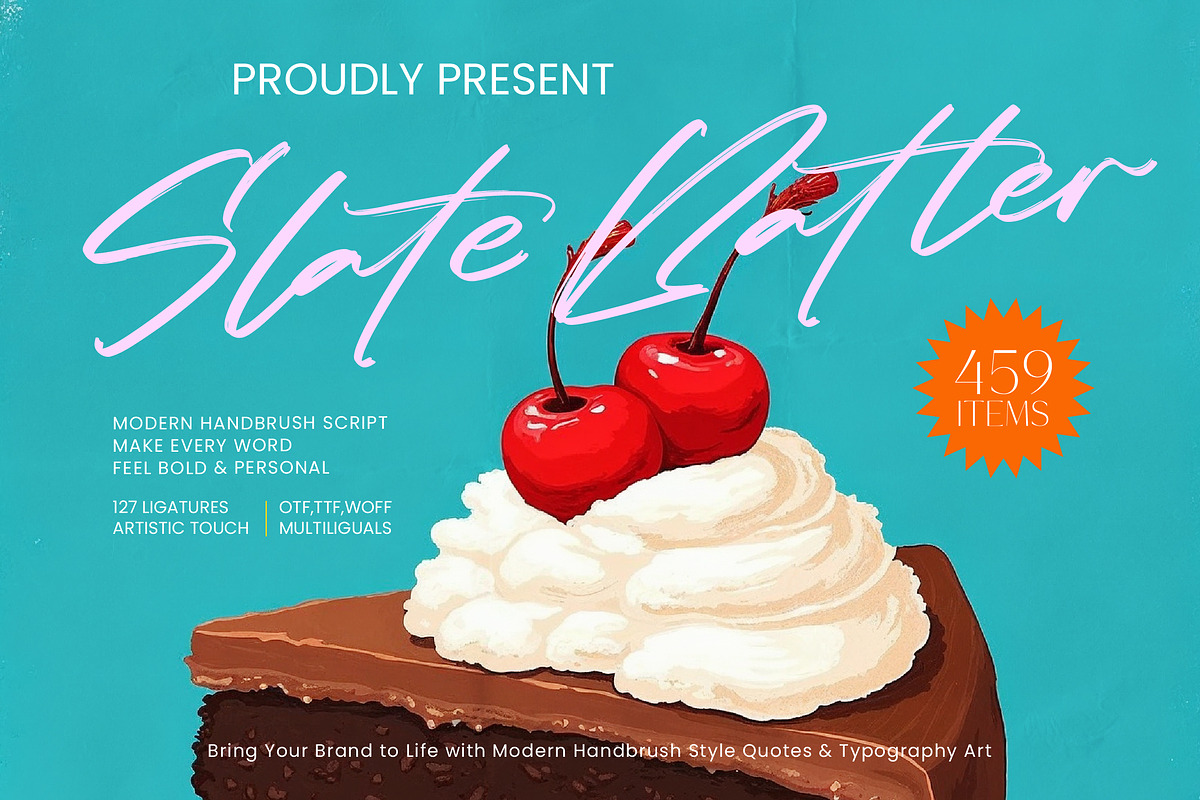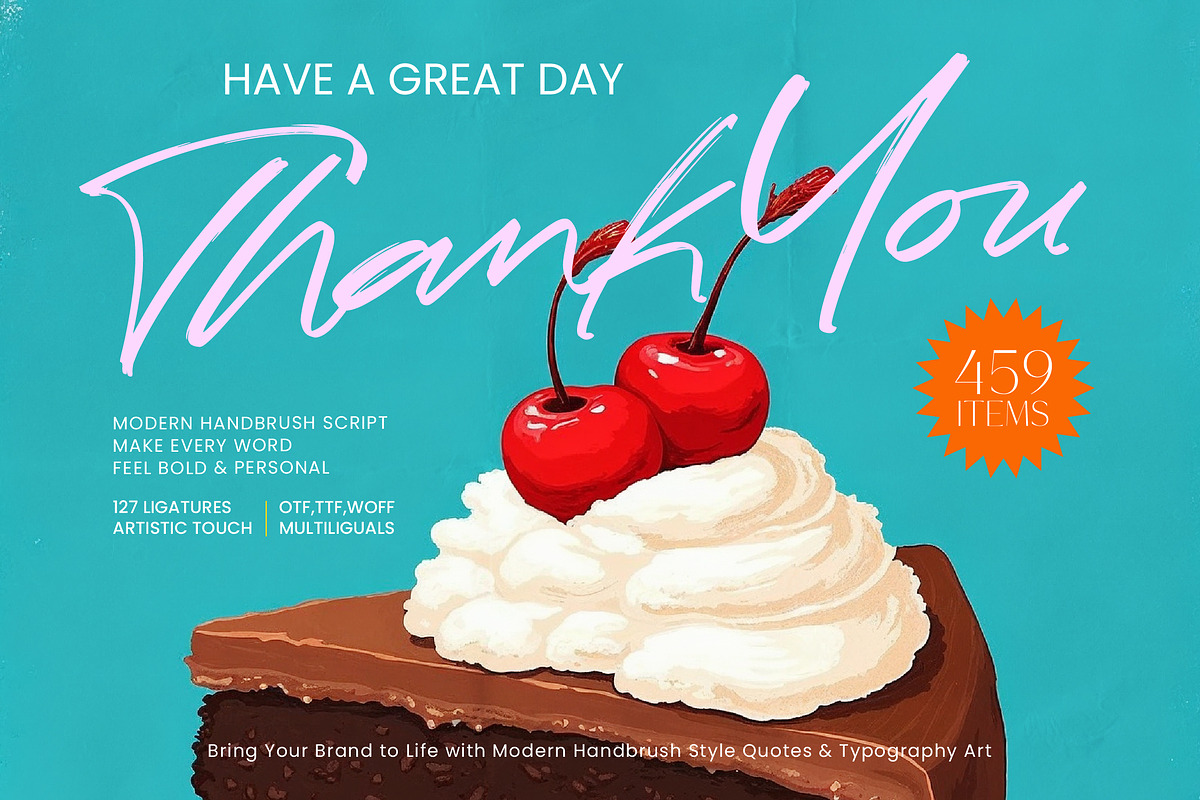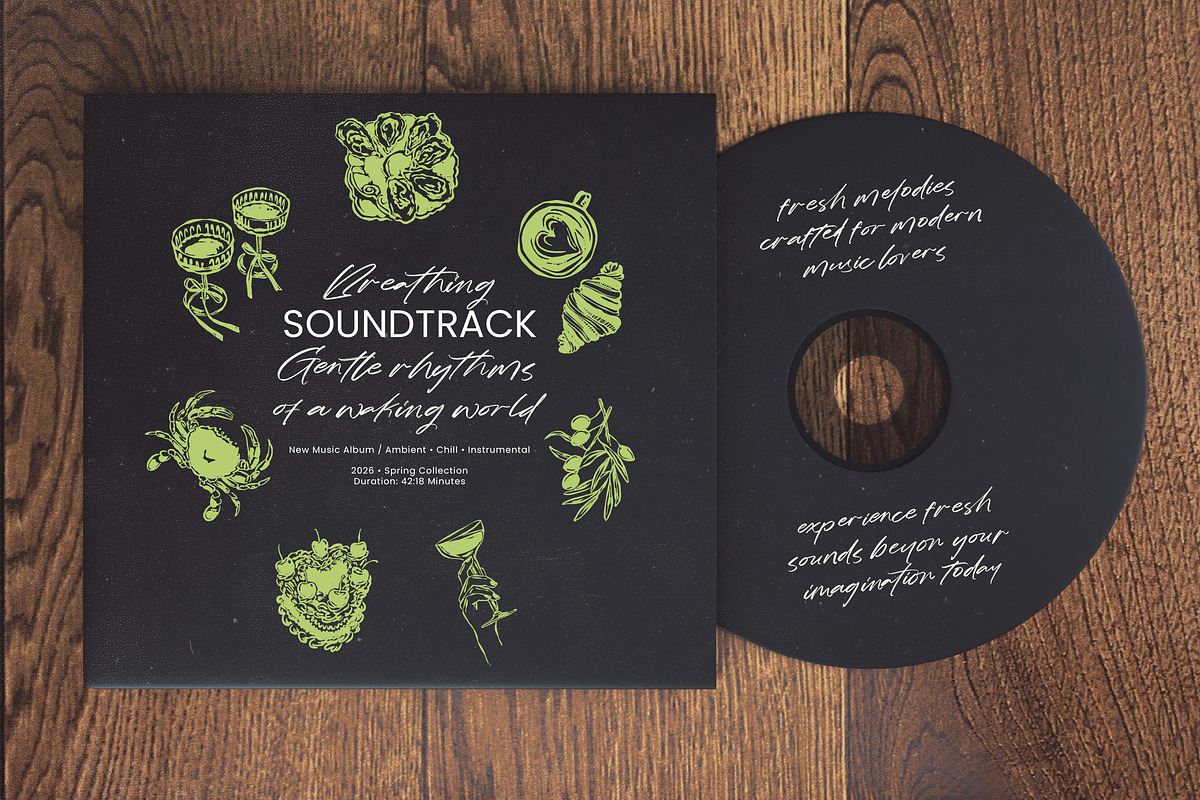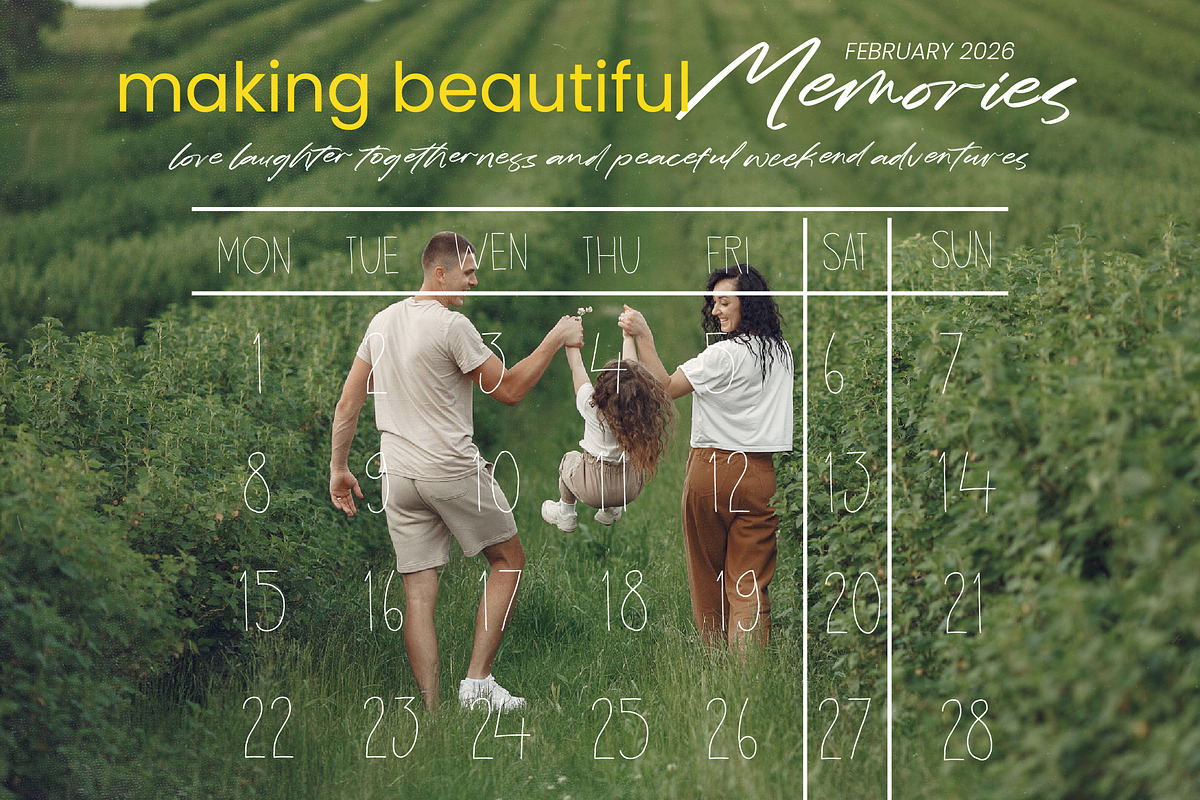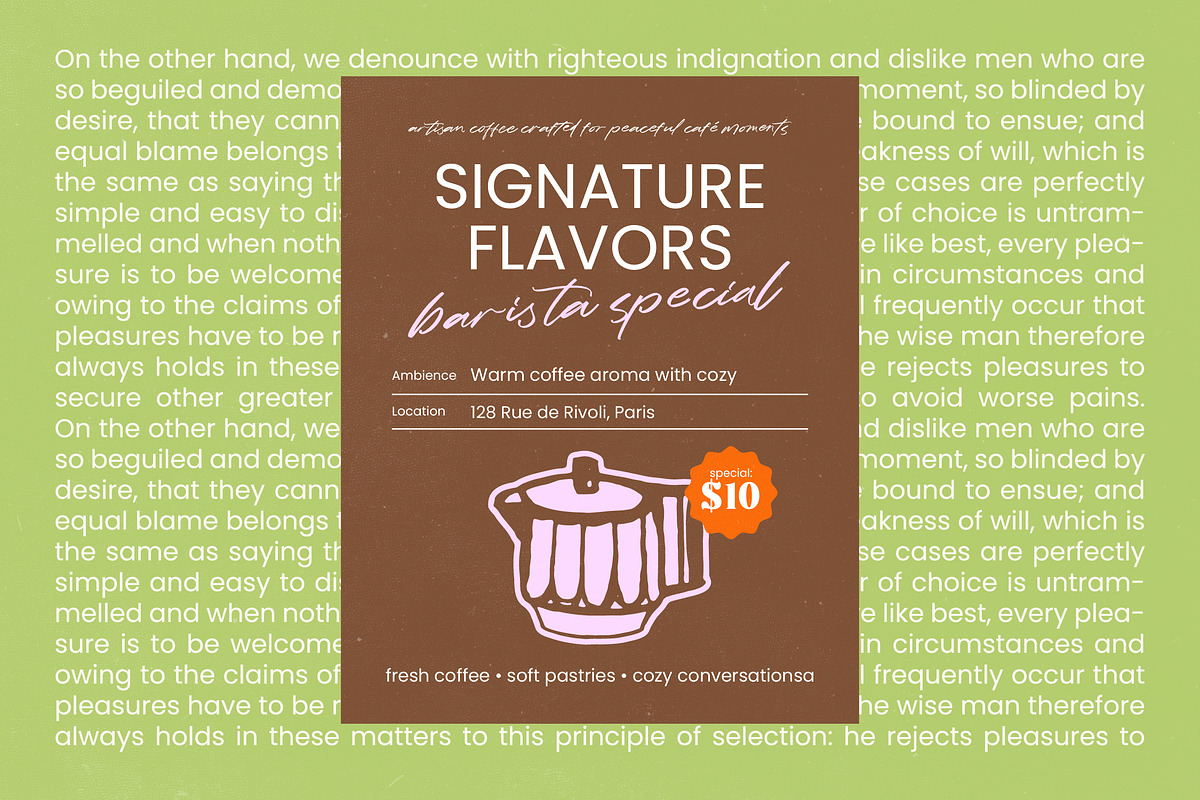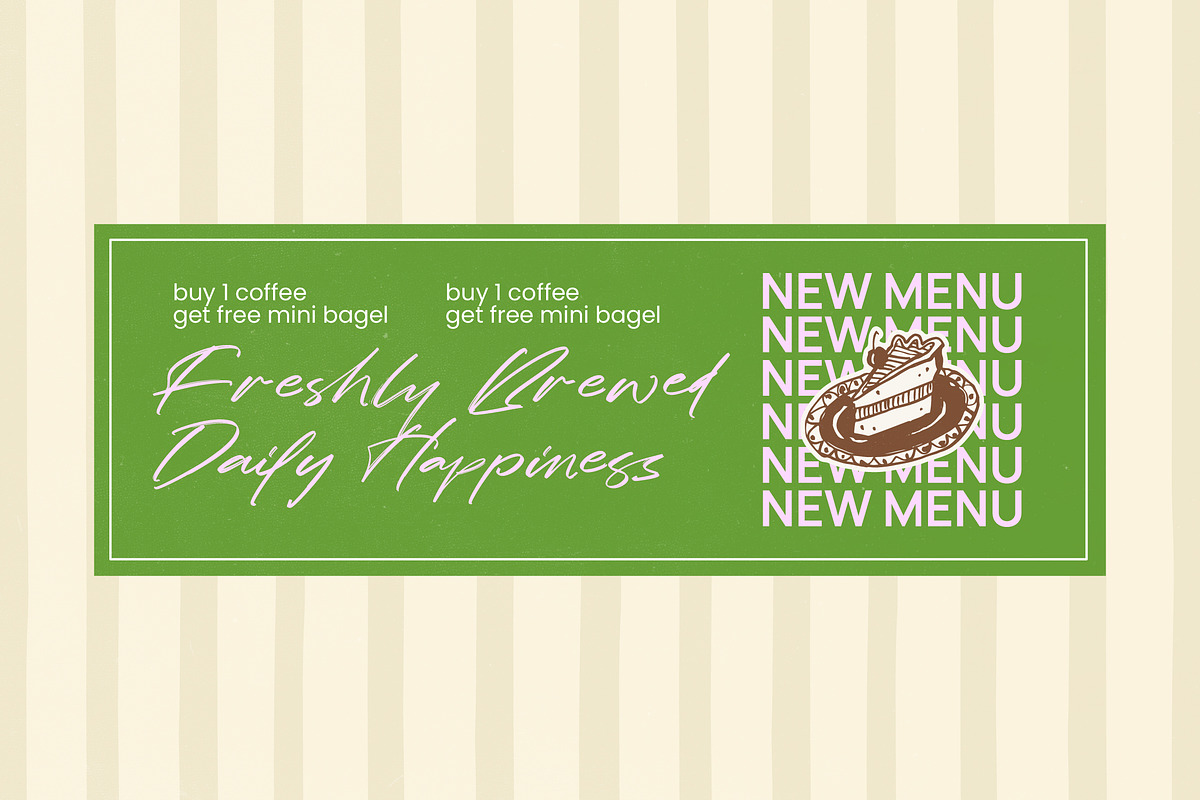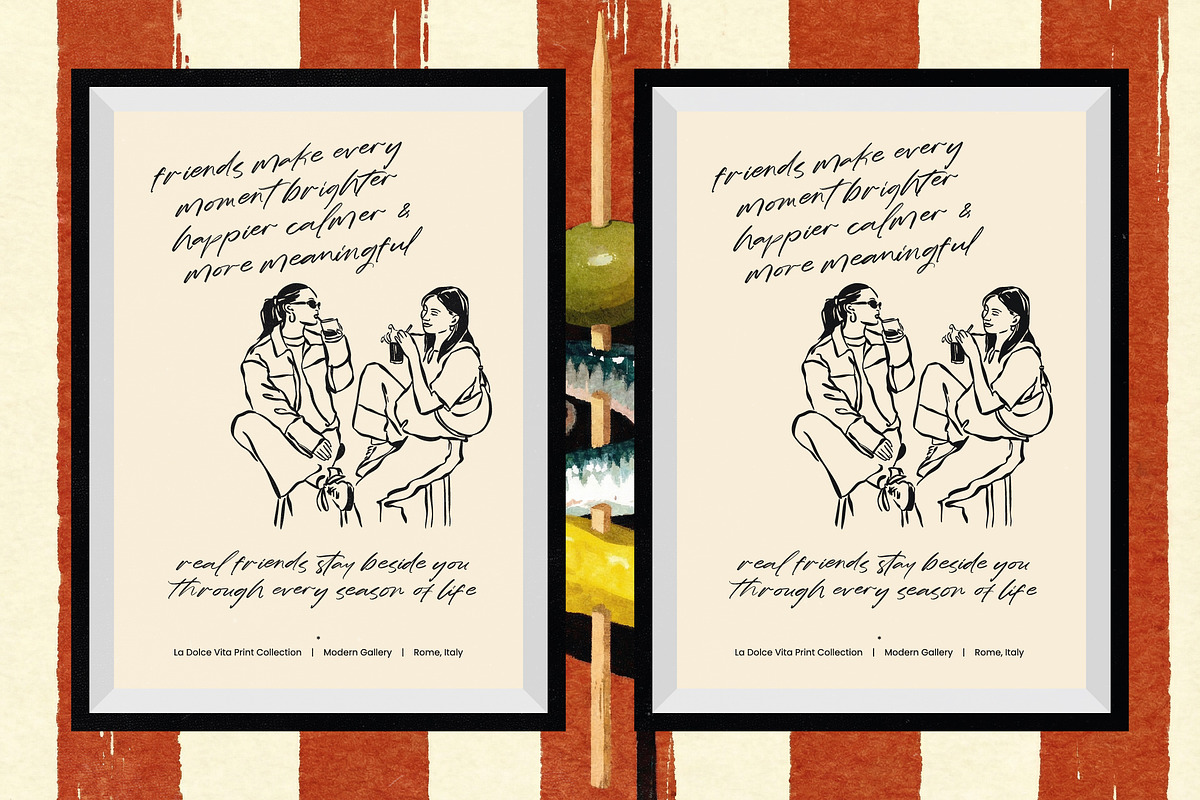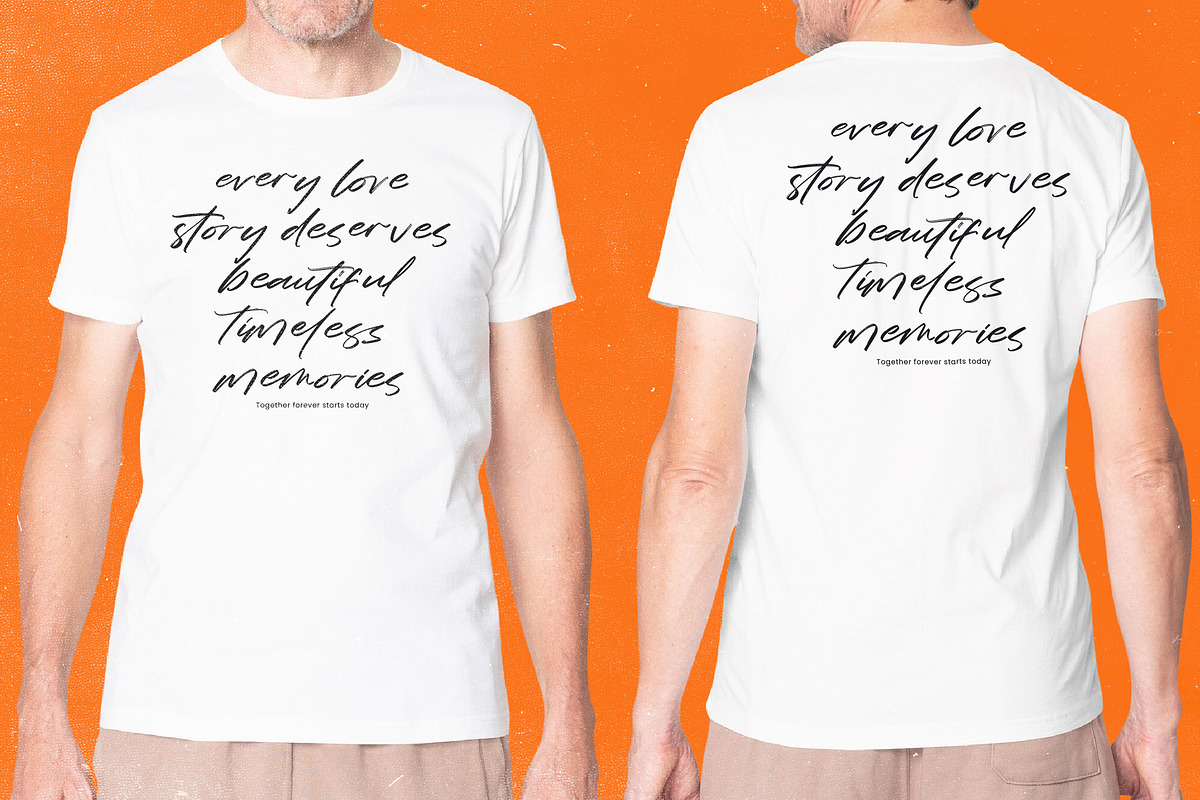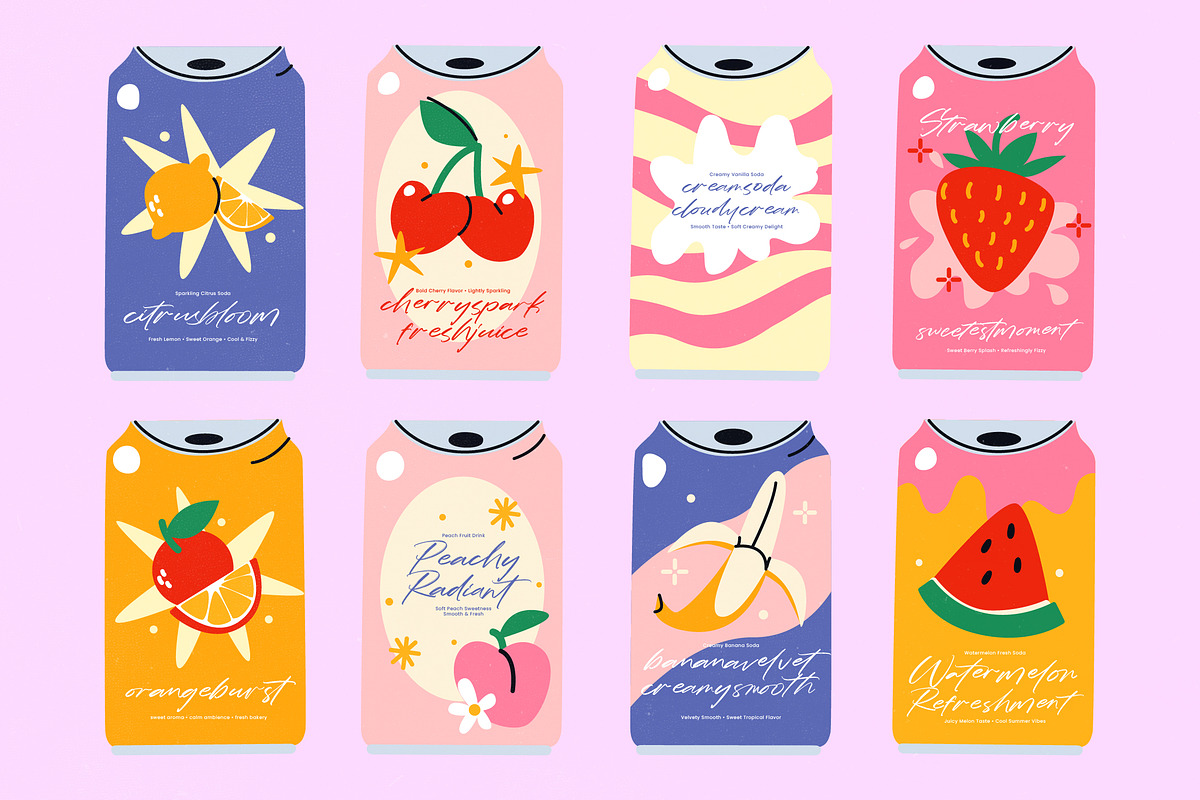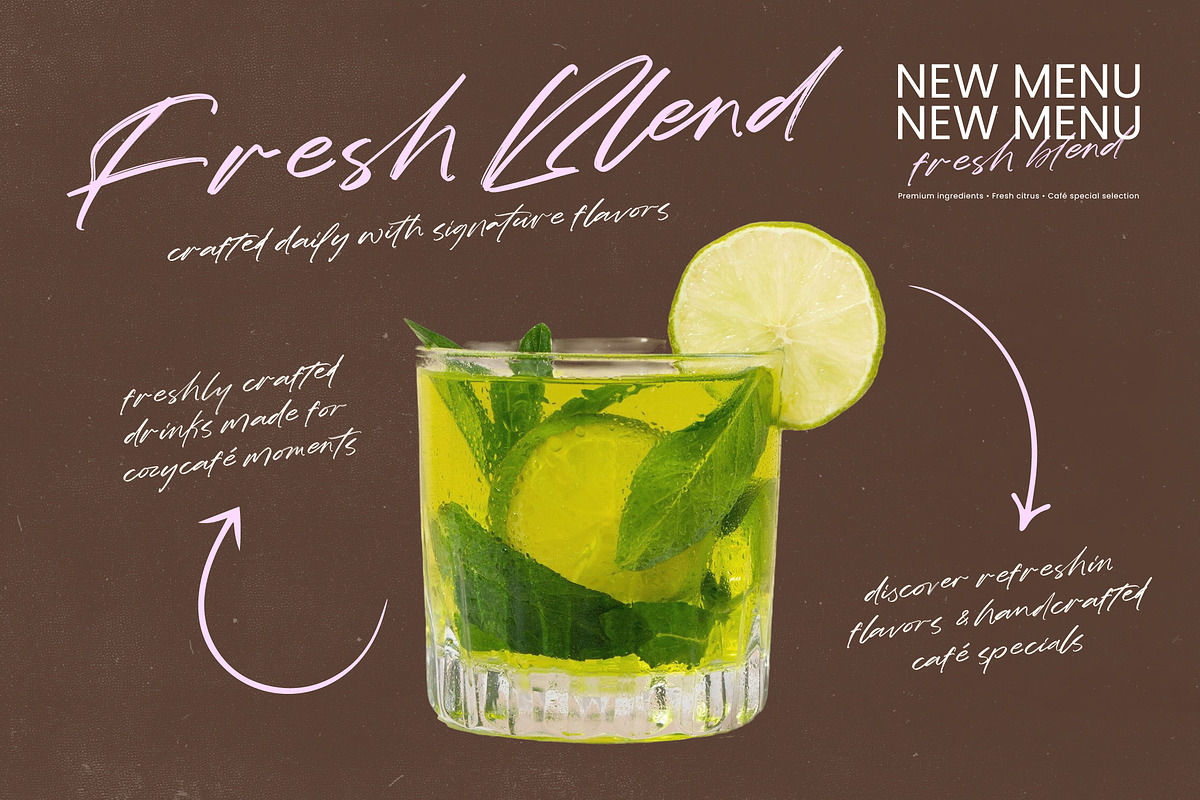
Slate Batter Modern Handbrush Script
Slate Batter - Modern Handbrush Script , Elevate your creative vision with the raw energy and expressive flair of Slate Batter - Modern Handbrush Script. This premium typography solution captures the artistic touch of manual brushwork, blending modern aesthetics with a bold, personal feel. Its fluid strokes and high-contrast characters create an immediate visual impact, ensuring that every word resonates with authenticity and dynamic movement.
Command attention in the marketplace by integrating Slate Batter - Modern Handbrush Script into your next luxury branding or editorial design project. This typeface is perfect for high-end product packaging, social media graphics, and fashion lookbooks where a distinctive identity is paramount. Its versatile nature makes it an ideal choice for signature logos and promotional posters that require a sophisticated edge.
Scale your brand globally with a typeface designed for international reach. With its extensive multilingual support, Slate Batter - Modern Handbrush Script adapts seamlessly across global markets, making it incredibly versatile for international projects. Featuring 127 ligatures and comprehensive glyphs, it provides unparalleled flexibility for designers working in diverse languages while maintaining a consistent visual narrative.